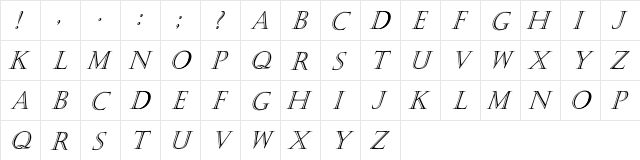
Kastellar-Itali Regular
Design Context for Kastellar-Itali Typeface
Kastellar-Itali offers clean, dependable letterforms without strong stylistic allegiance, making it a practical choice for designers who need flexibility.